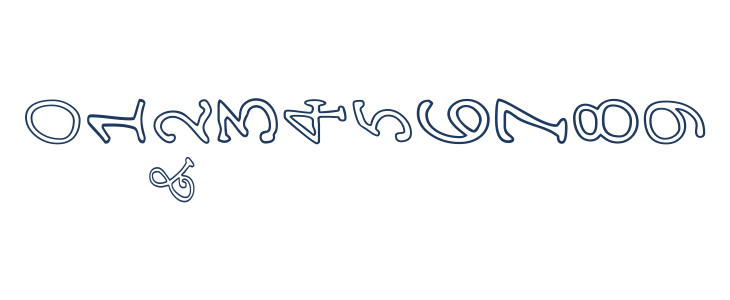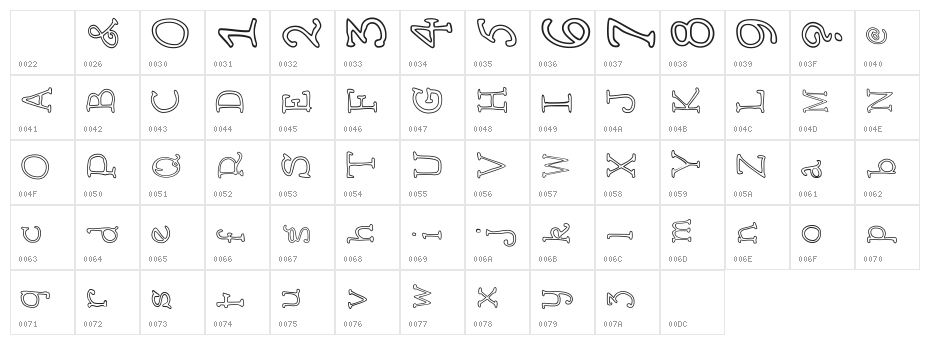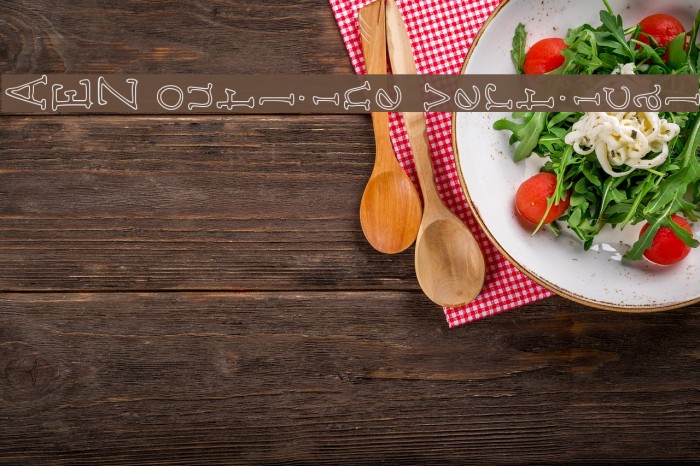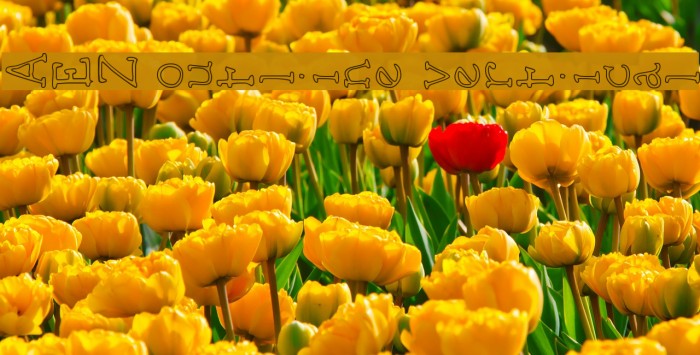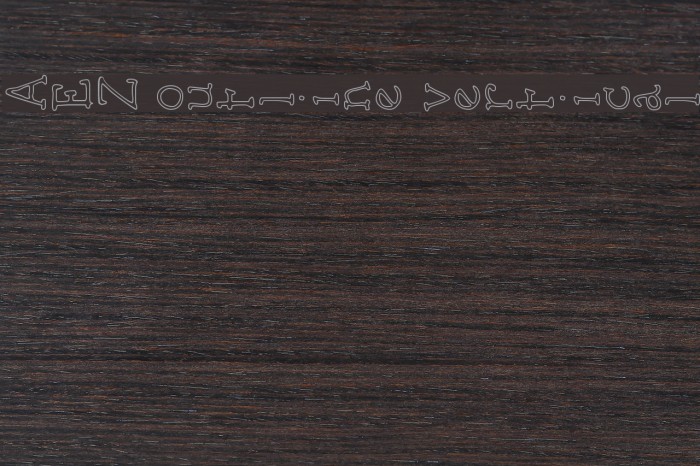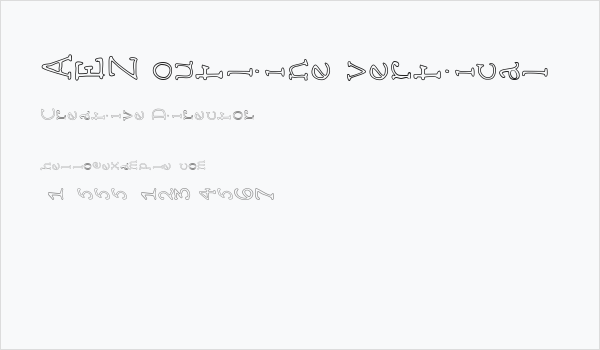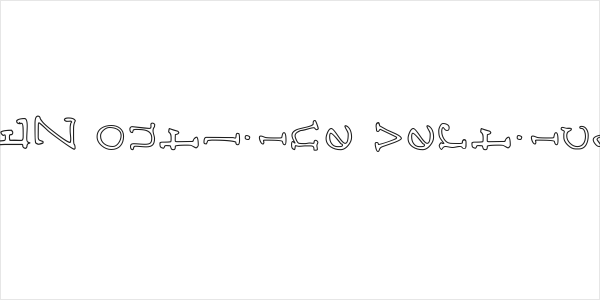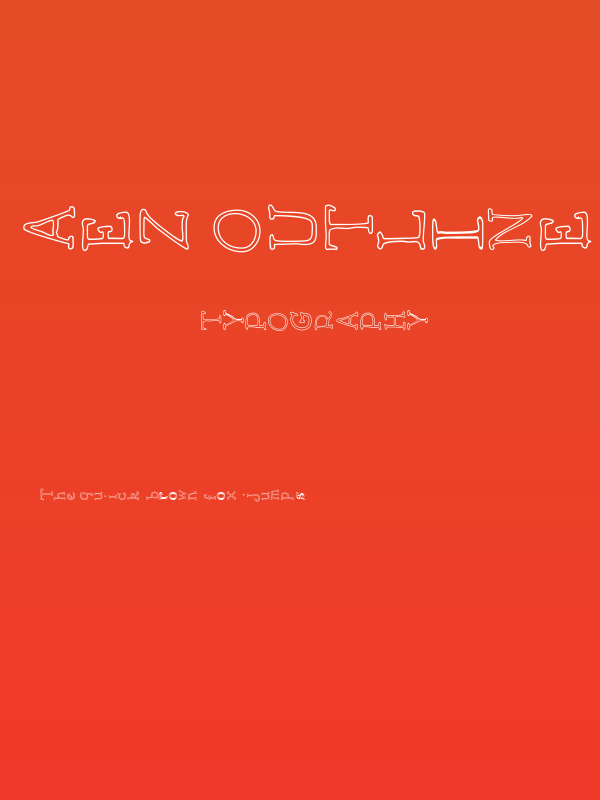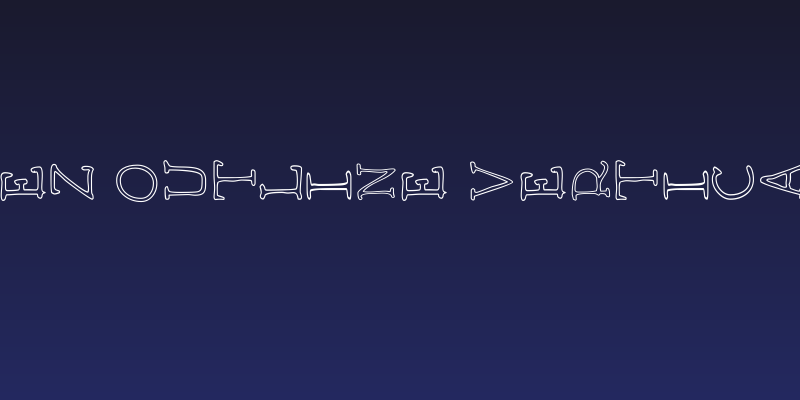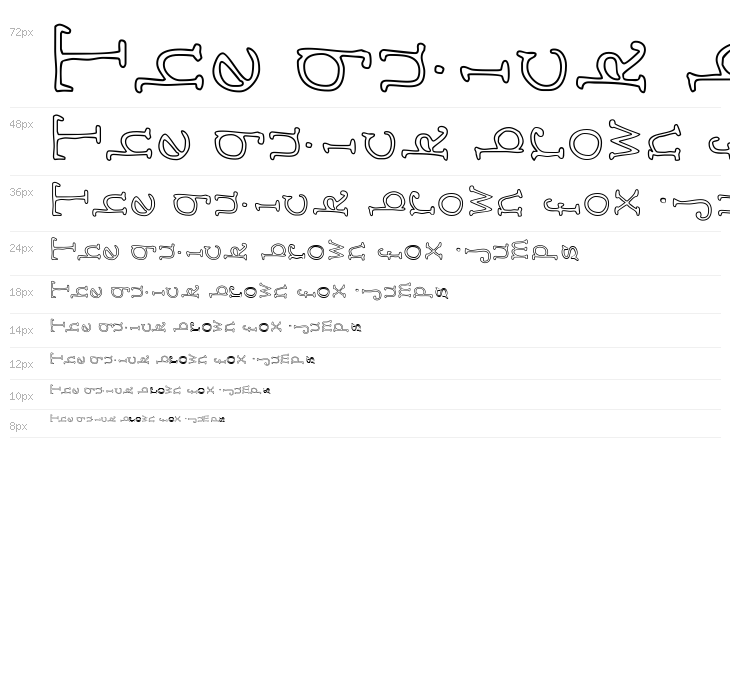
AEZ outline vertical Font
AEZ outline vertical Description
This font features a unique outline style with a playful and decorative flair. Each character is outlined, giving it a hollow appearance that stands out against backgrounds. The letters have a whimsical, almost cartoonish quality, with exaggerated serifs and curves that add to its charm. The uppercase and lowercase letters maintain a consistent style, while the numbers and special characters follow suit with the same outlined design. This font is ideal for projects that require a fun and eye-catching typeface.